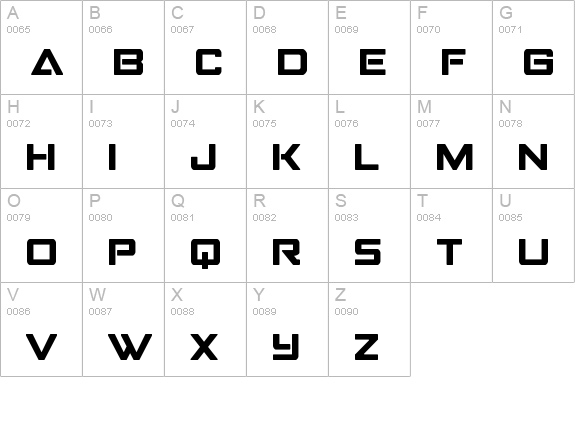
Strike Fighter font is a powerful and dynamic typeface designed to make a bold statement. With its sharp edges and sleek design, this font exudes strength and modernity. Perfect for headlines, logos, and other applications where impact is key, Strike Fighter is sure to catch the eye of your audience.